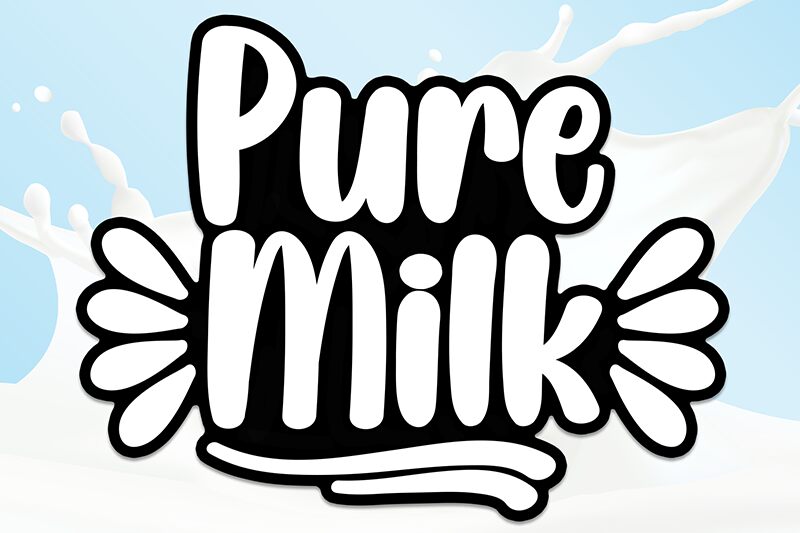
Pure Milk
Pure Milk font is designed by Scratchones as a free brush font with a retro-inspired style. Friendly and approachable, it can easily upgrade your designs by adding a casual natural aesthetic and vibe. Writing is presented in rounded forms with significant thickness which allows this penmanship to stand out from the rest when used in your projects.
The font works for label and packaging design, social media posts, apparel designs, branding projects, typography quotes and posters, greeting cards invitations, book covers titles, advertisements and more. Make sure to remember it’s free to use!